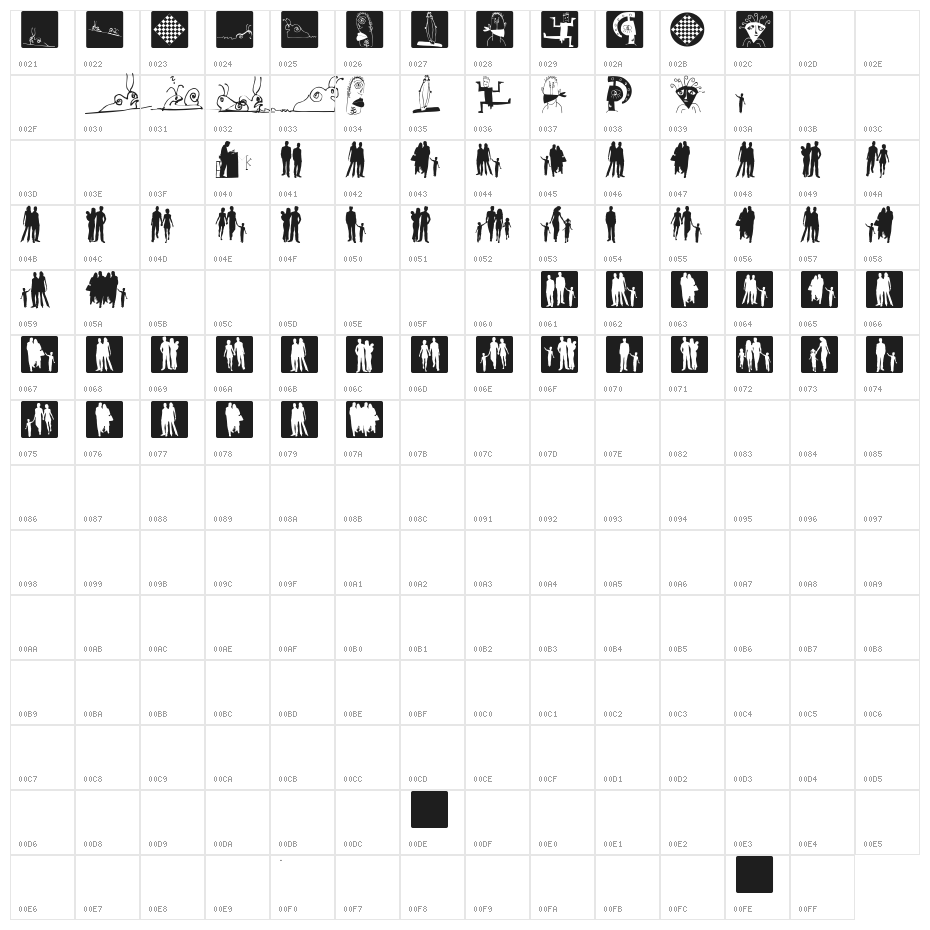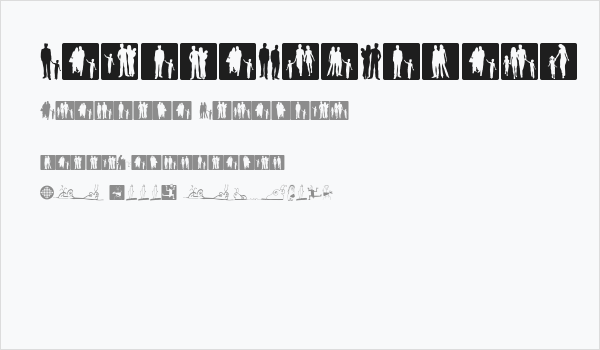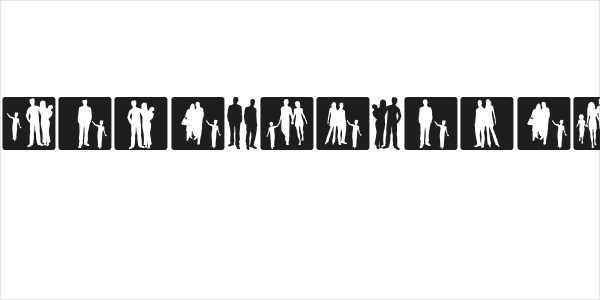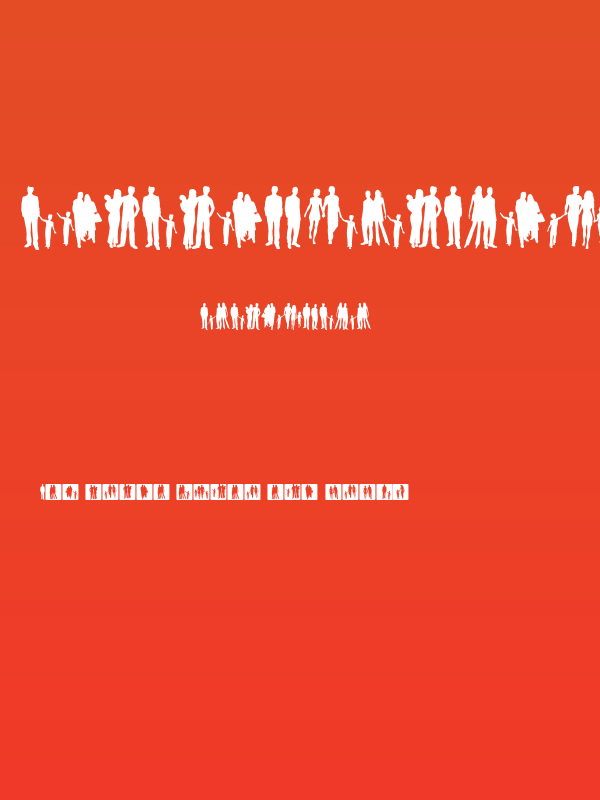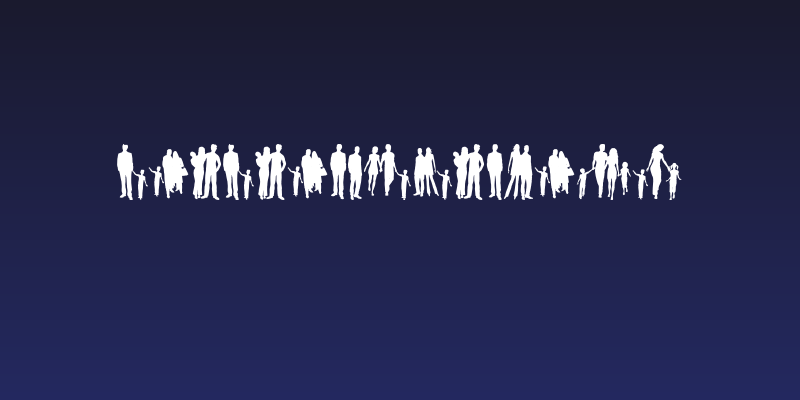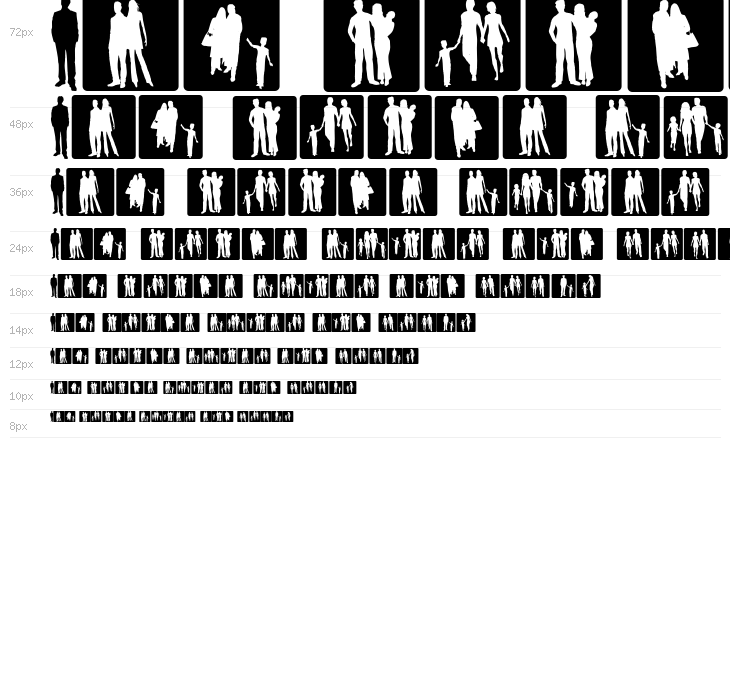
PeopleAndOthers Font
This is not a traditional font but rather a collection of silhouette images depicting various groups of people and whimsical characters. The images include families, couples, and individuals in different poses, as well as abstract and artistic figures. The style is more illustrative and decorative, focusing on visual storytelling rather than textual representation. The silhouettes are bold and clear, making them suitable for creative projects that require a human element or artistic flair.
| Use Case | Illustrations, Posters, Creative Projects |
| Proposed Projects | Ideal for creative projects such as posters, storybooks, or educational materials that require visual representation of people and artistic elements. |